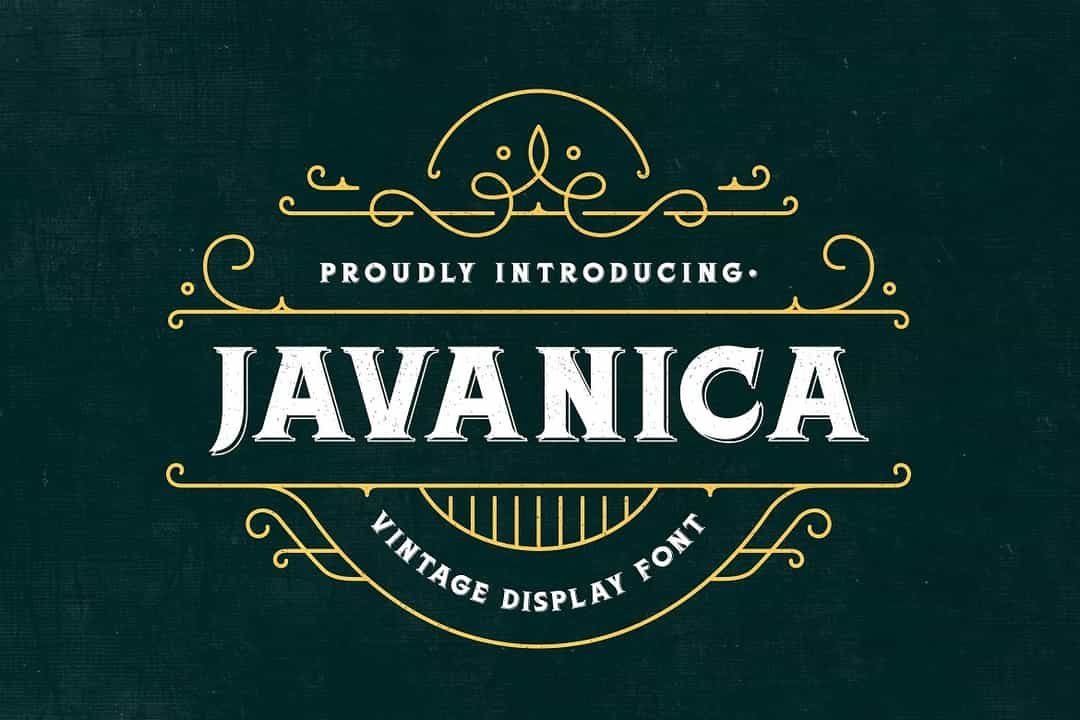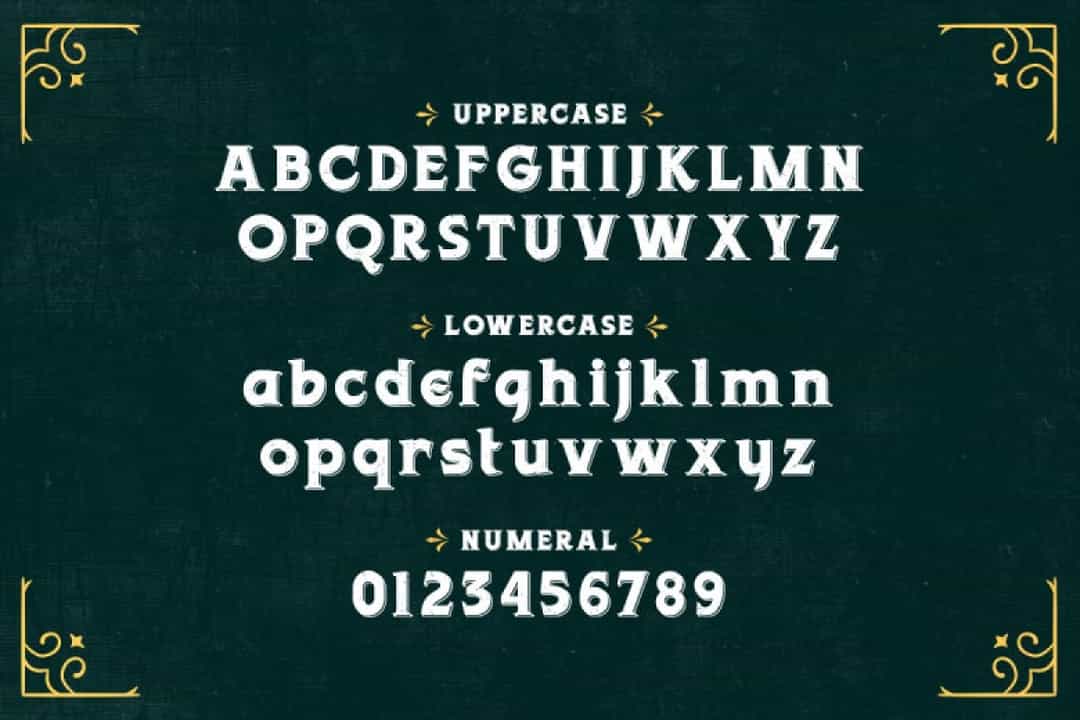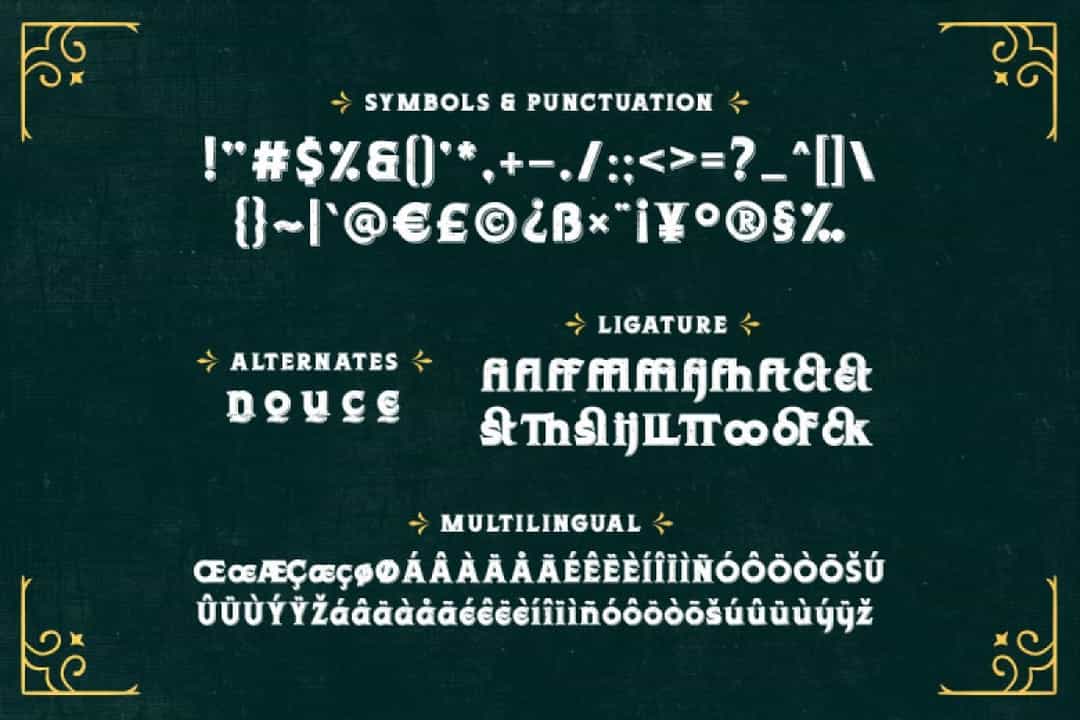
Javanica is an old-fashioned serif display font created by hand and inspired by posters of yesteryear. Featuring uppercase numbers, lowercase letters and punctuation marks in alternative font forms with multilingual capabilities – ideal for logotypes, letterheads, posters, apparel design labels and many other projects.